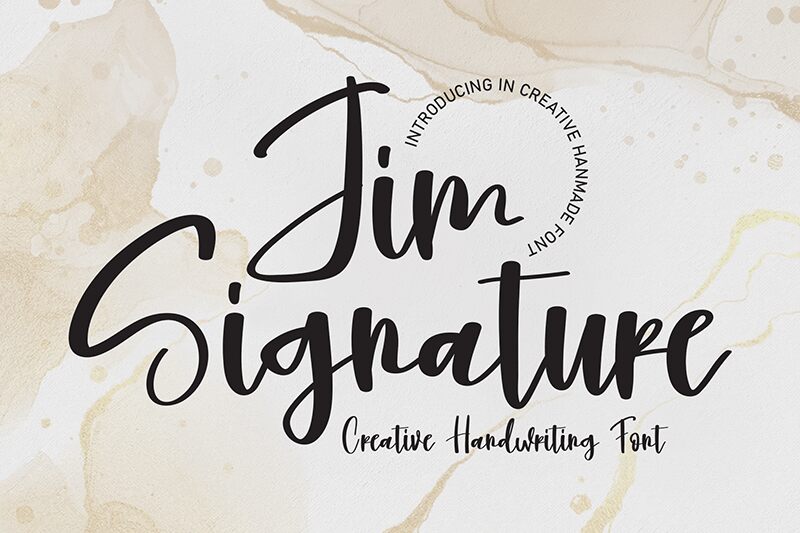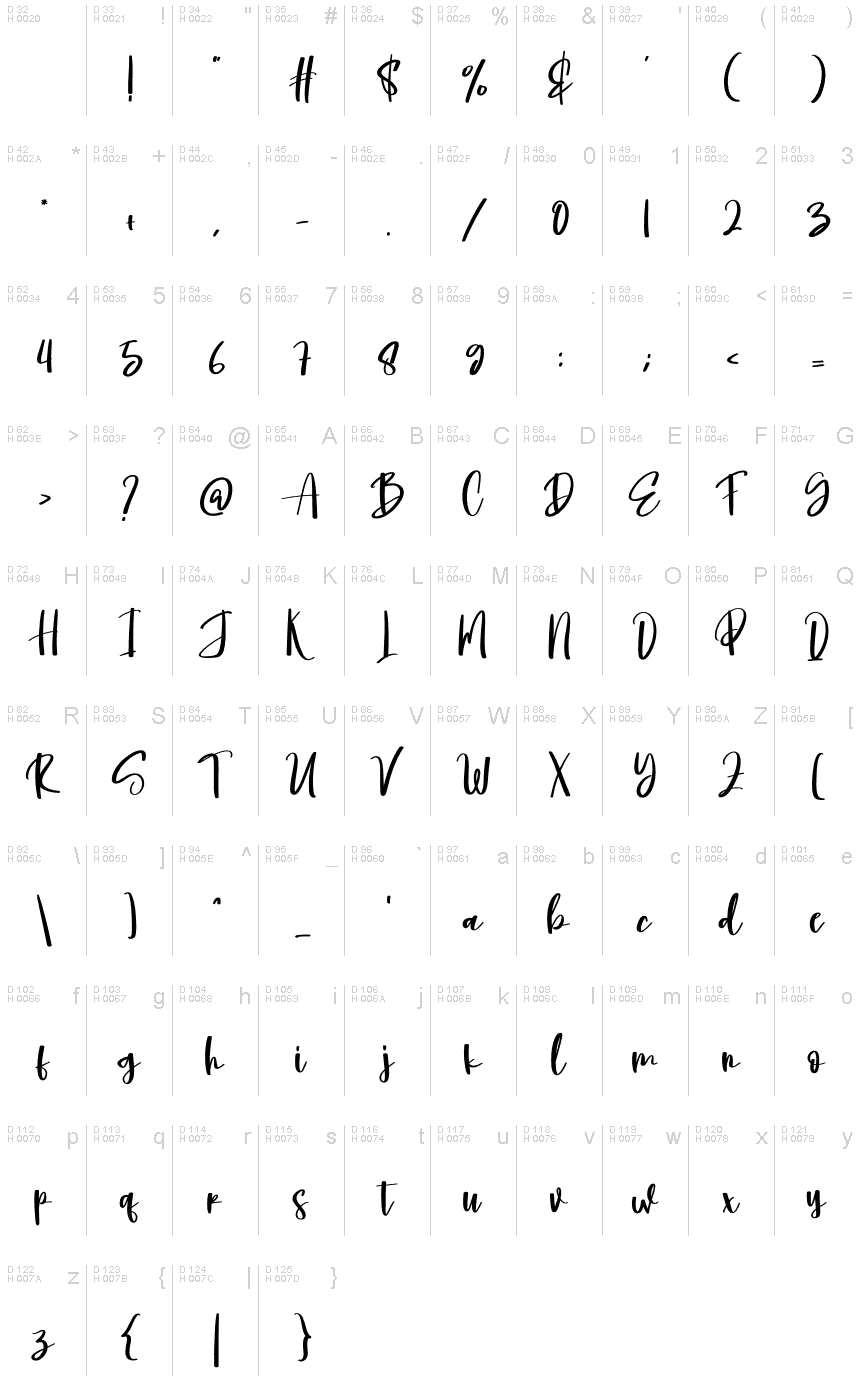
Jim Signature
Jim Signature is the perfect font for those looking to add a personal touch to their projects. With its elegant and sophisticated handwritten signature style, it exudes class and professionalism. This semi-bold typeface is great for branding, logos, invitations, or any project where you want to leave your mark with a touch of flair. The narrow width of Jim Signature makes it ideal for use in headlines or captions. Whether you're designing a business card or creating social media graphics, Jim Signature is sure to impress and leave a lasting impression on your audience. Upgrade your designs today with Jim Signature!
the latest style letters are perfect for wall displays, wedding invitations, social media post logos, advertisements, product packaging, product designs, labels, photography, watermarks, invitations, stationery, and any project that requires taste handwriting.